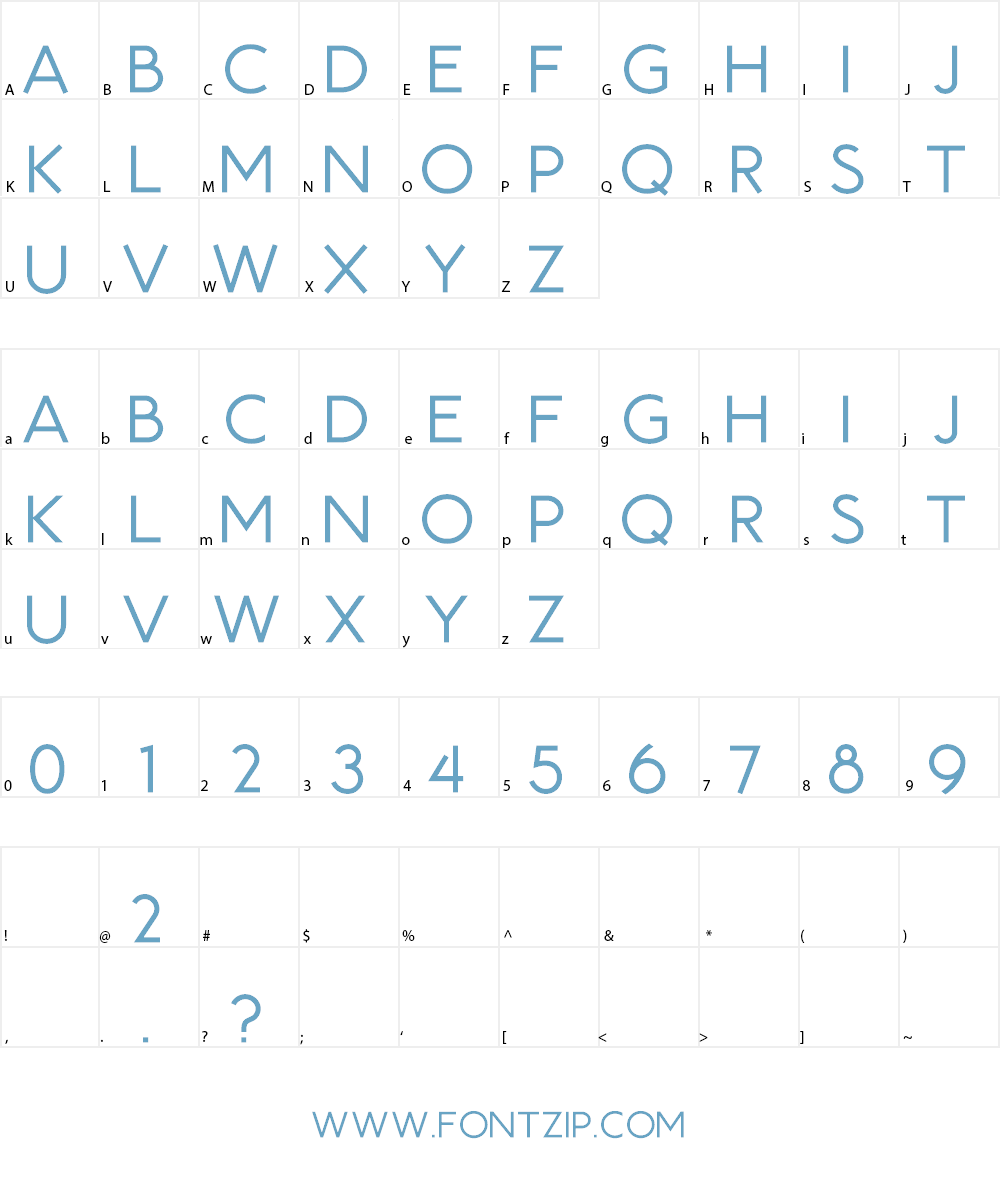
by Sharkshock
Royal Crescent is an all caps sans-serif based on Johnston, the font found on London’s subway stations. The uniform width is consistent throughout creating low contrast. There are slight variations, between several upper and lowercase characters which can be used interchangeably. Use Royal Crescent for a poster, a magazine, or company logo. There are 3 weights included in the full version. Basic/Extended Latin, punctuation, symbols, diacritics, Cyrillic, kerning, and fractions are all included. The demo includes basic Latin, numbers, limited punctuation, and limited kerning.